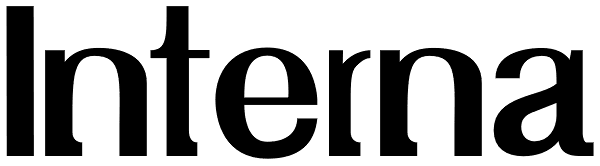
Interna
A font that's a sans on the outside and a serif on the inside. Inspired by fonts like Rotis, Clarendon and a little Avant Garde, Interna has a slightly vintage feel to it.
Interna Font